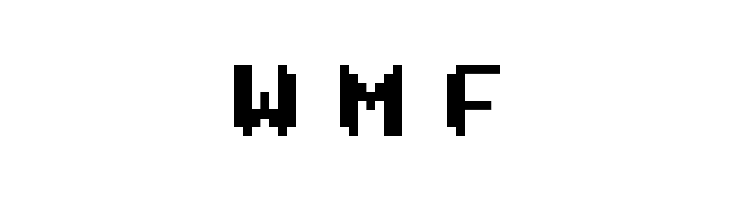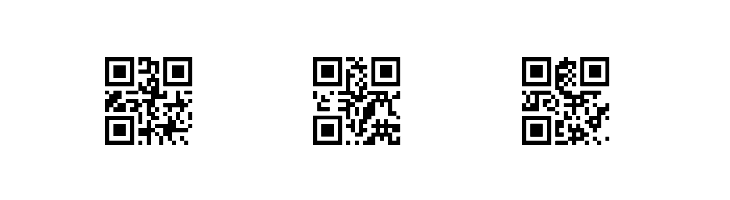
A decorative font with detailed illustrations of ancient warriors and weapons.
A playful, doodle-patterned font with bold, rounded characters.
A decorative font with a geometric, triangular pattern creating each character.
A set of stylized media and technology format logos.
A decorative font with intricate patterns and a vintage flair.
A versatile collection of monochrome social media logos, designed for easy recognition and integration.
Intricate and elegant ornamental designs with swirling lines and floral motifs.
Ornate vintage ornament borders with intricate detailing.
An intricate decorative font featuring elegant ornamental designs.
A playful font with egg-shaped faces displaying various expressions.
A decorative collection of floral and geometric symbols for artistic embellishments.
A textured, distressed font with a modern, graffiti-like style.
A bold, vintage-style font with a three-dimensional shadow effect.
A digital, segmented font inspired by classic LED displays.
A dot matrix font with a retro digital display style.
A dot-matrix style font inspired by digital displays.
A dot-matrix style font with a digital, LED display appearance.
A pixelated, grid-based font with a digital, tech-inspired look.
A digital, futuristic font with angular, segmented characters.
A futuristic, hollow, segmented font inspired by digital displays.
A modern, digital-inspired italic font with segmented, angular lines.
A digital, segmented font with a futuristic and geometric style.
A dot matrix style font with a digital, modern aesthetic.
A modern, geometric font with bold, rounded strokes and a futuristic style.
A pixelated, retro-style font with a bold, digital appearance.
A playful, pixelated font with a retro digital aesthetic.
A display font mimicking QR codes for each character.
A modern, geometric font with a digital, tech-inspired aesthetic.